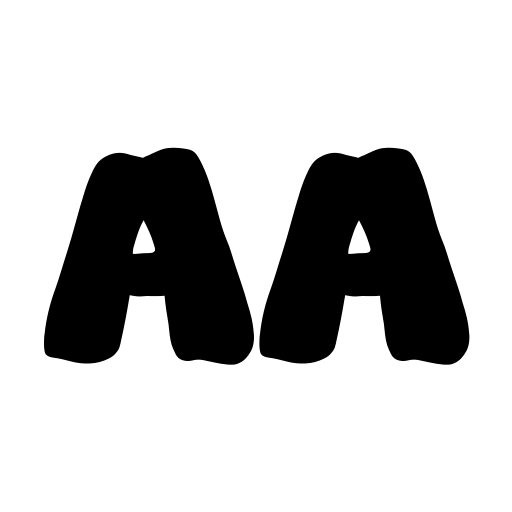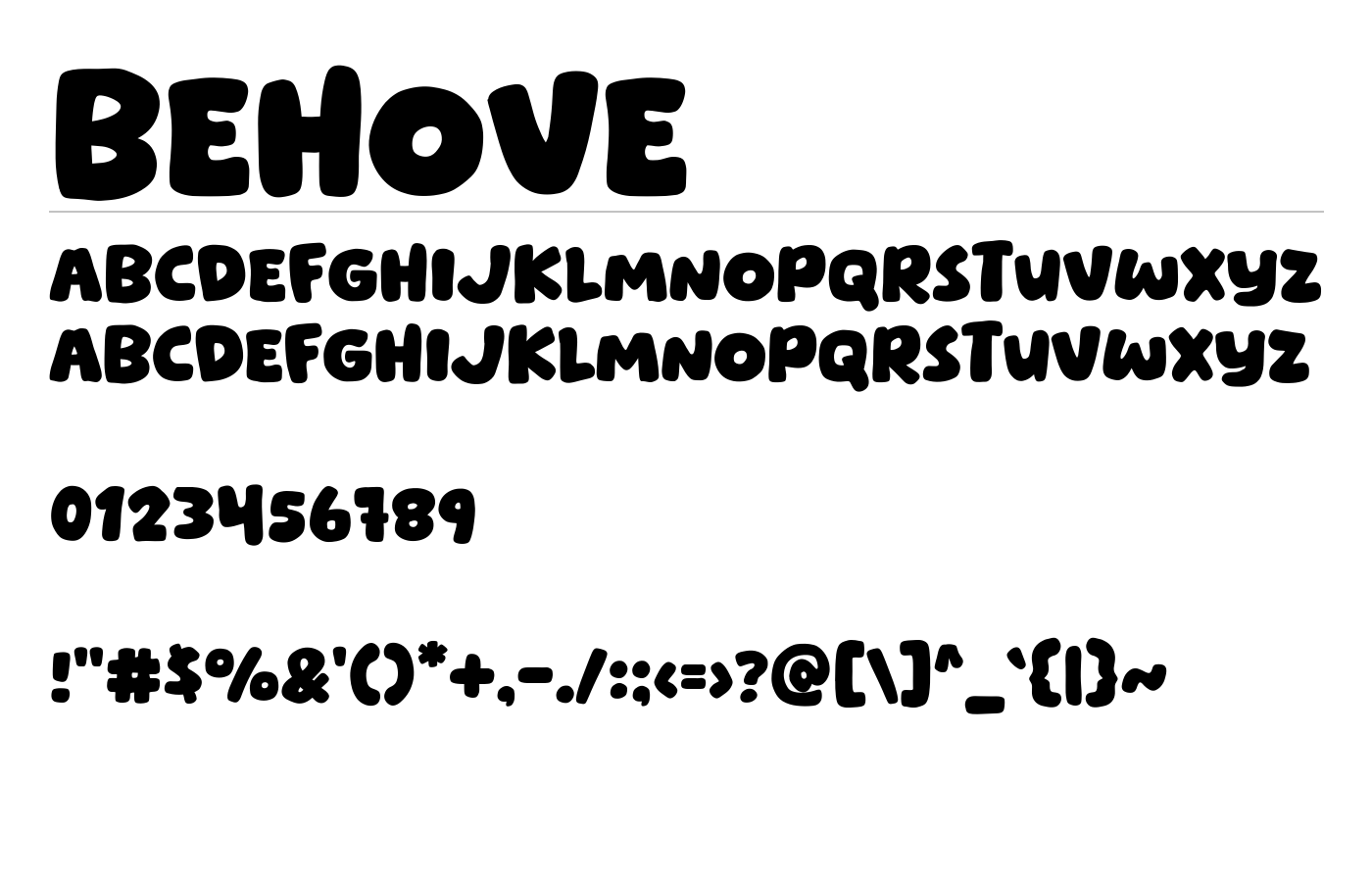
Behove is a bold, playful sans serif font characterized by its rounded, chunky letterforms and organic, hand-drawn feel. Its friendly and informal style makes it perfect for children’s books, casual branding, and fun, eye-catching headlines that need a warm and approachable vibe. This font works well wherever a lively and cheerful impression is desired.
Behove Font
About Behove Font